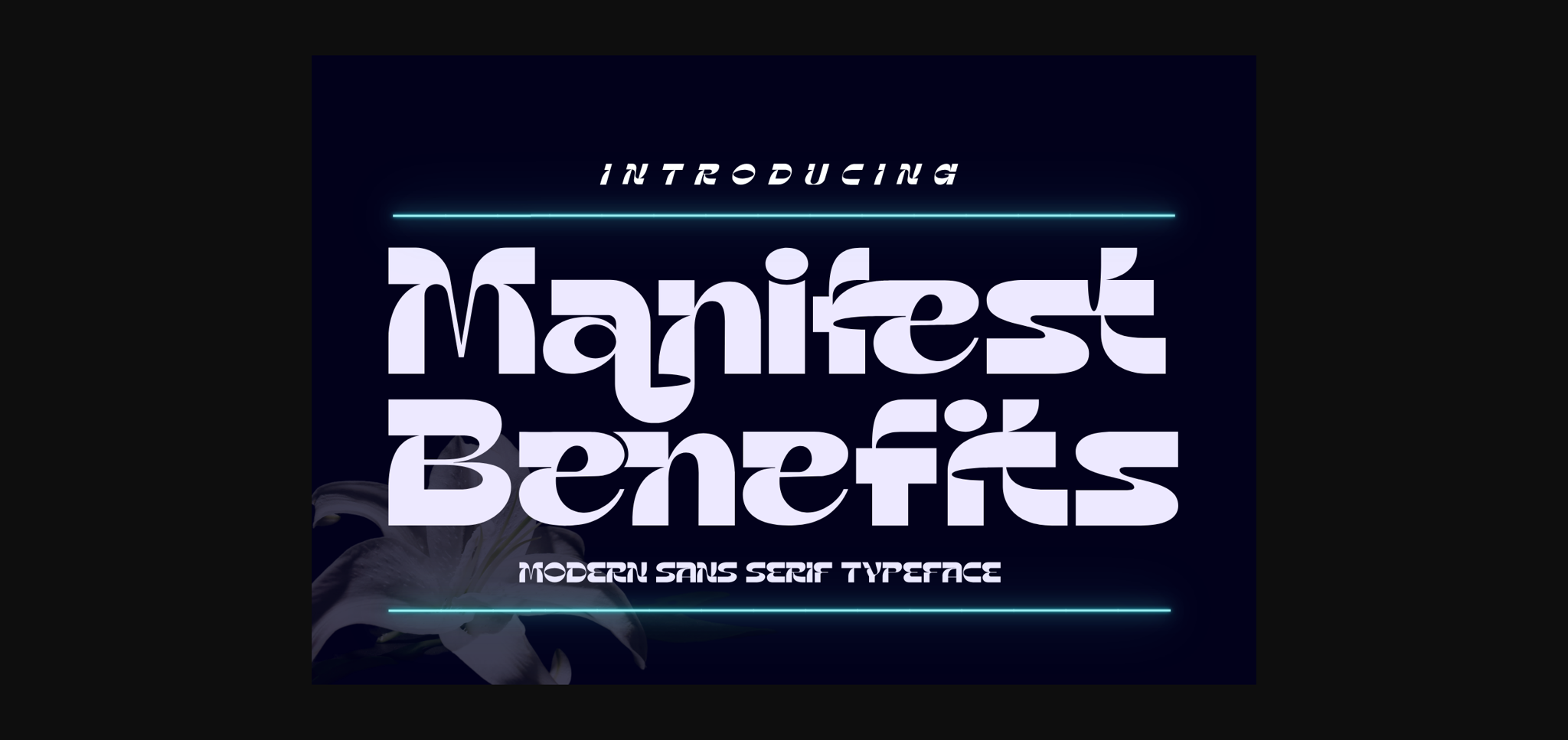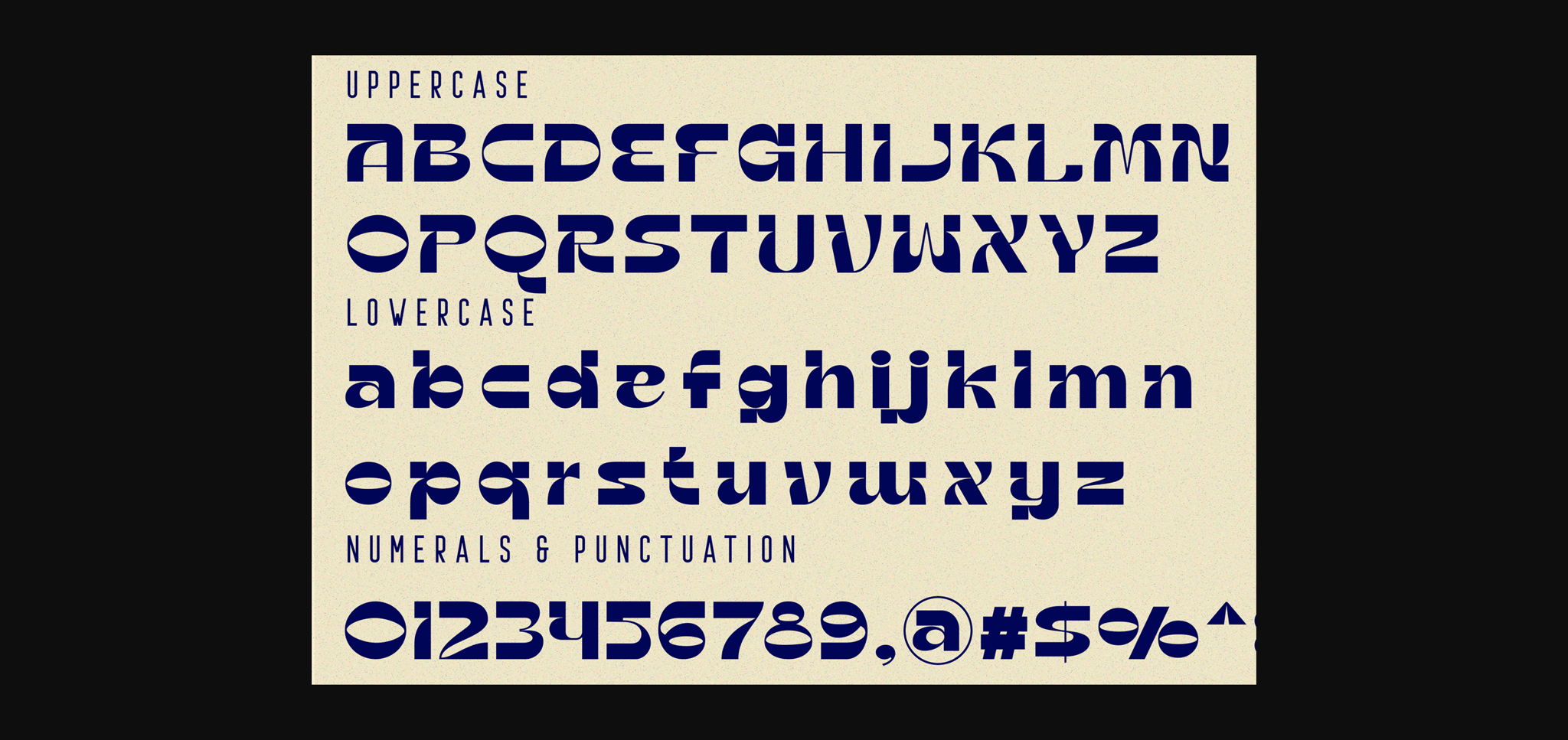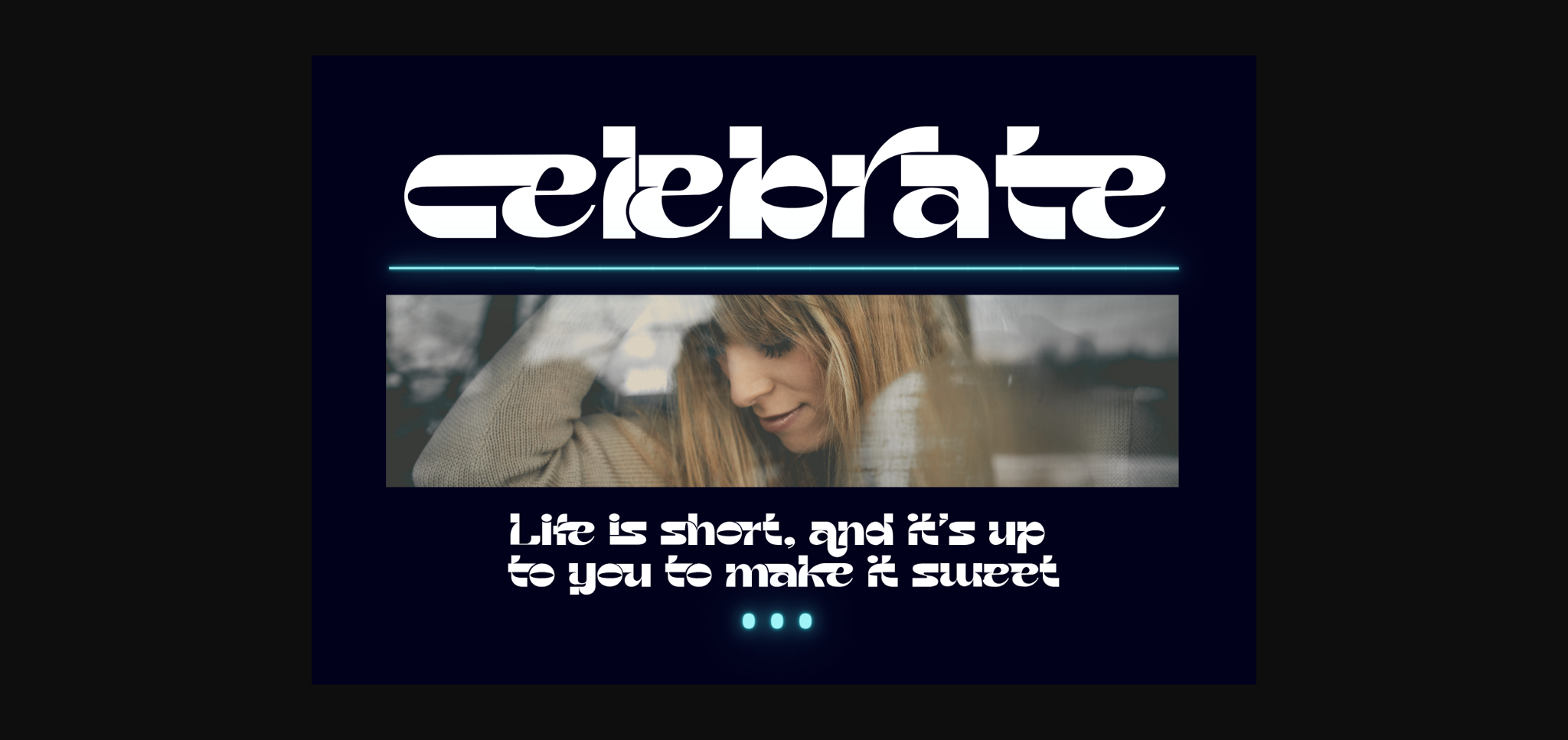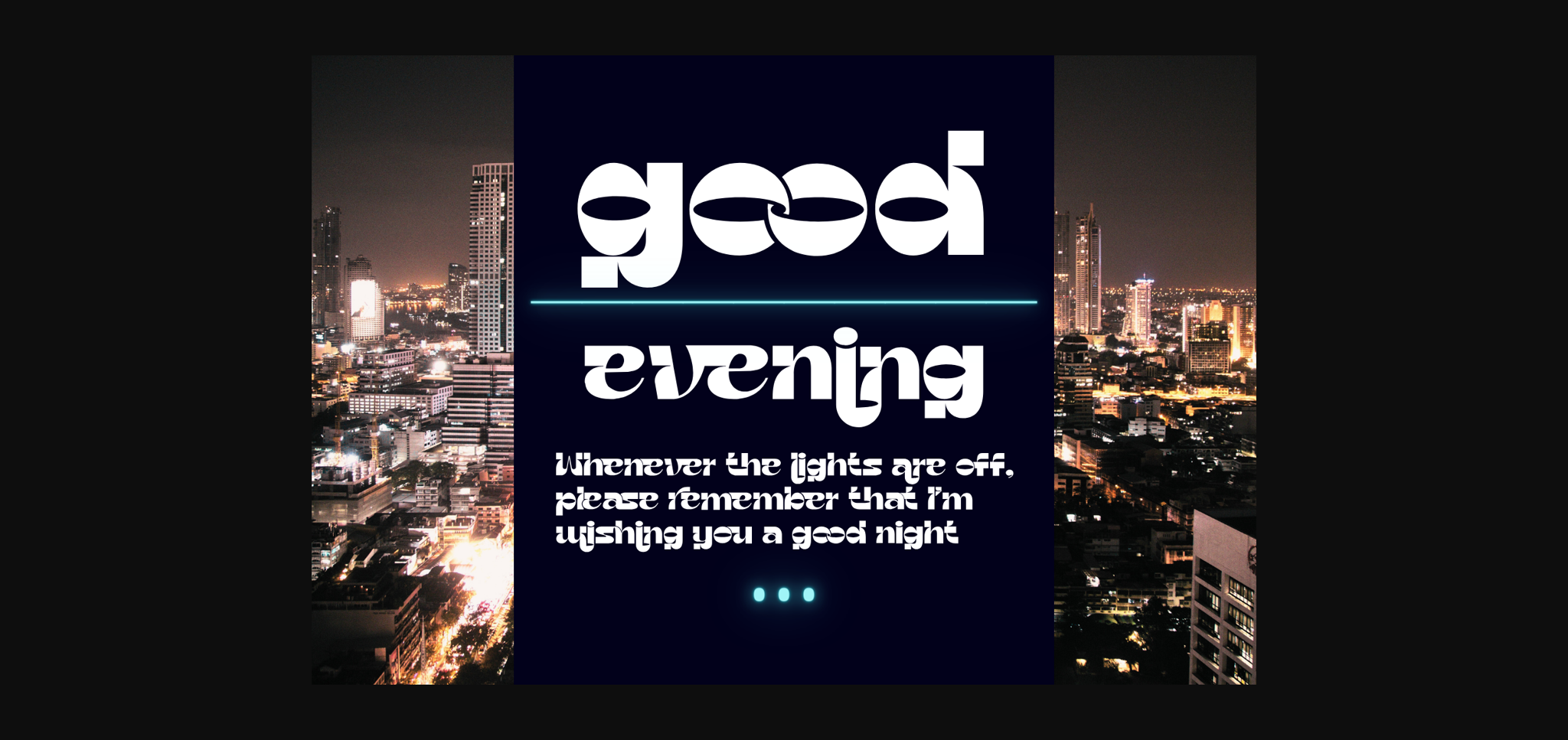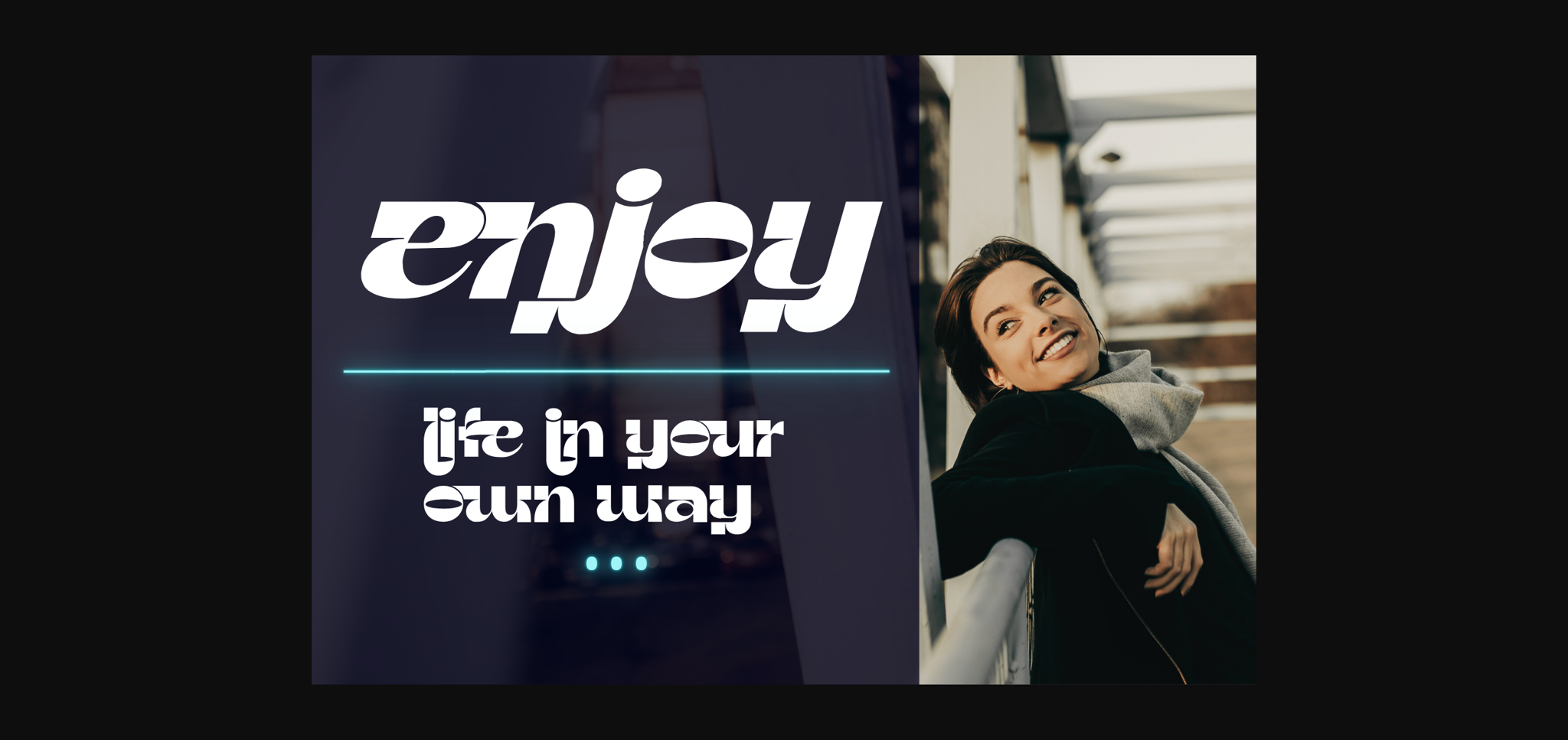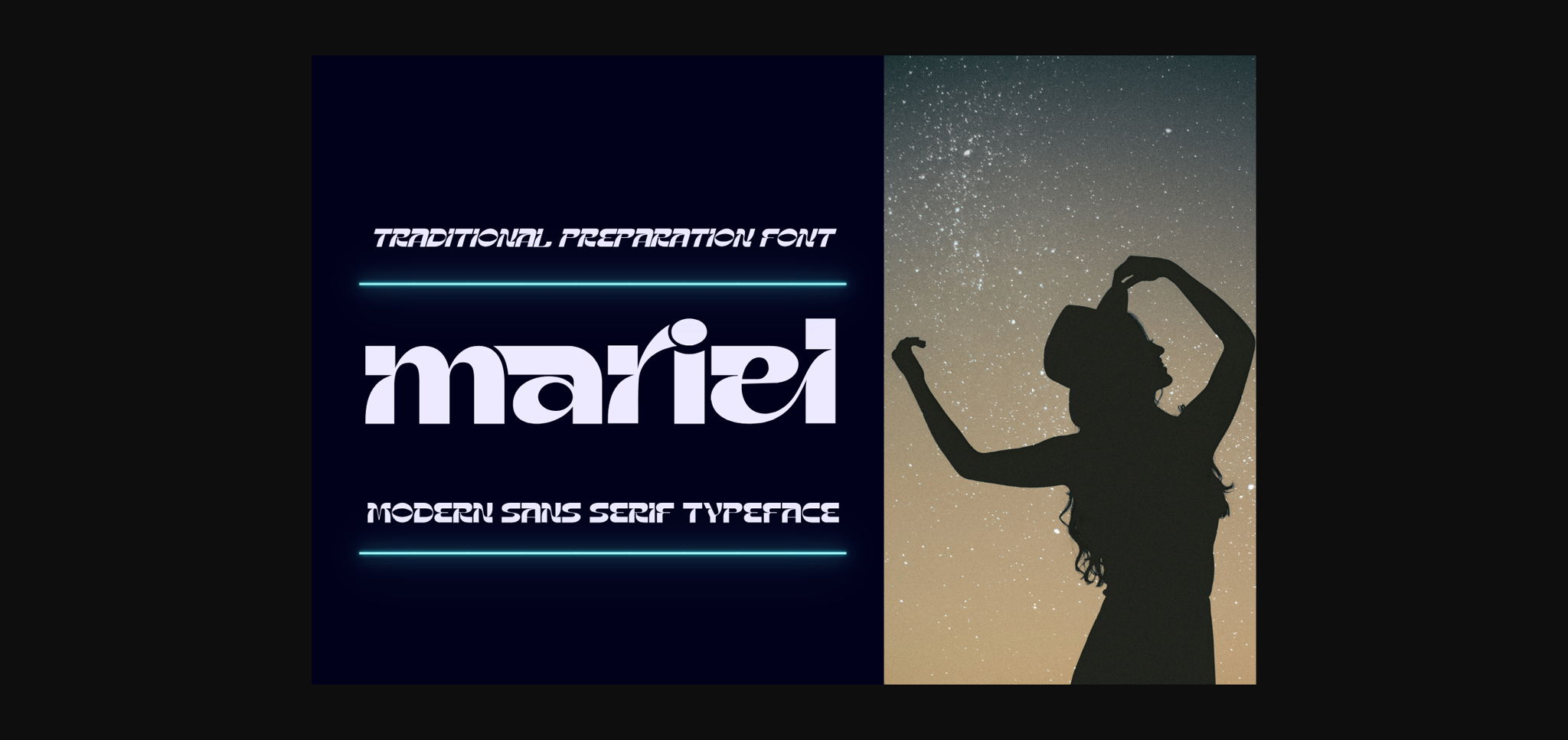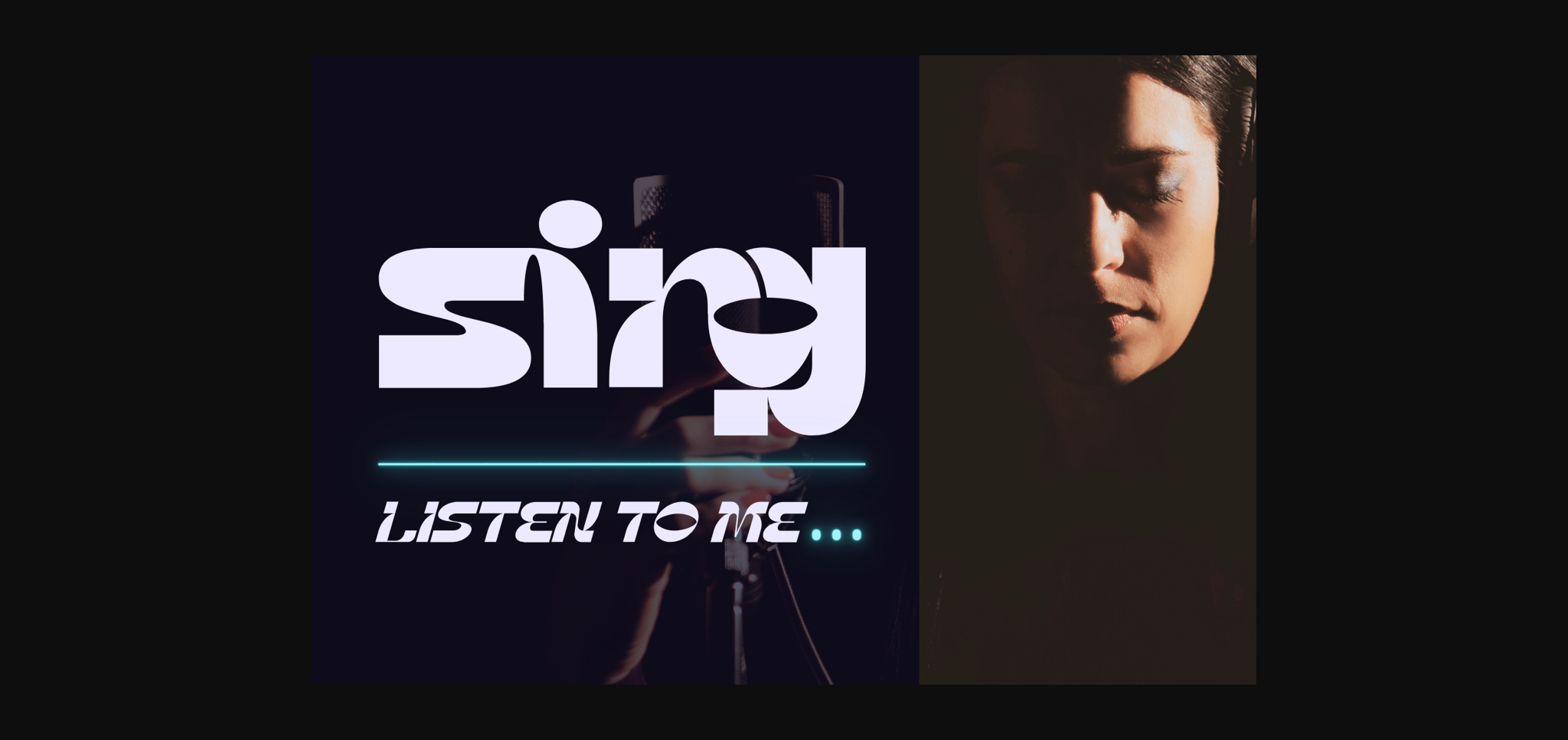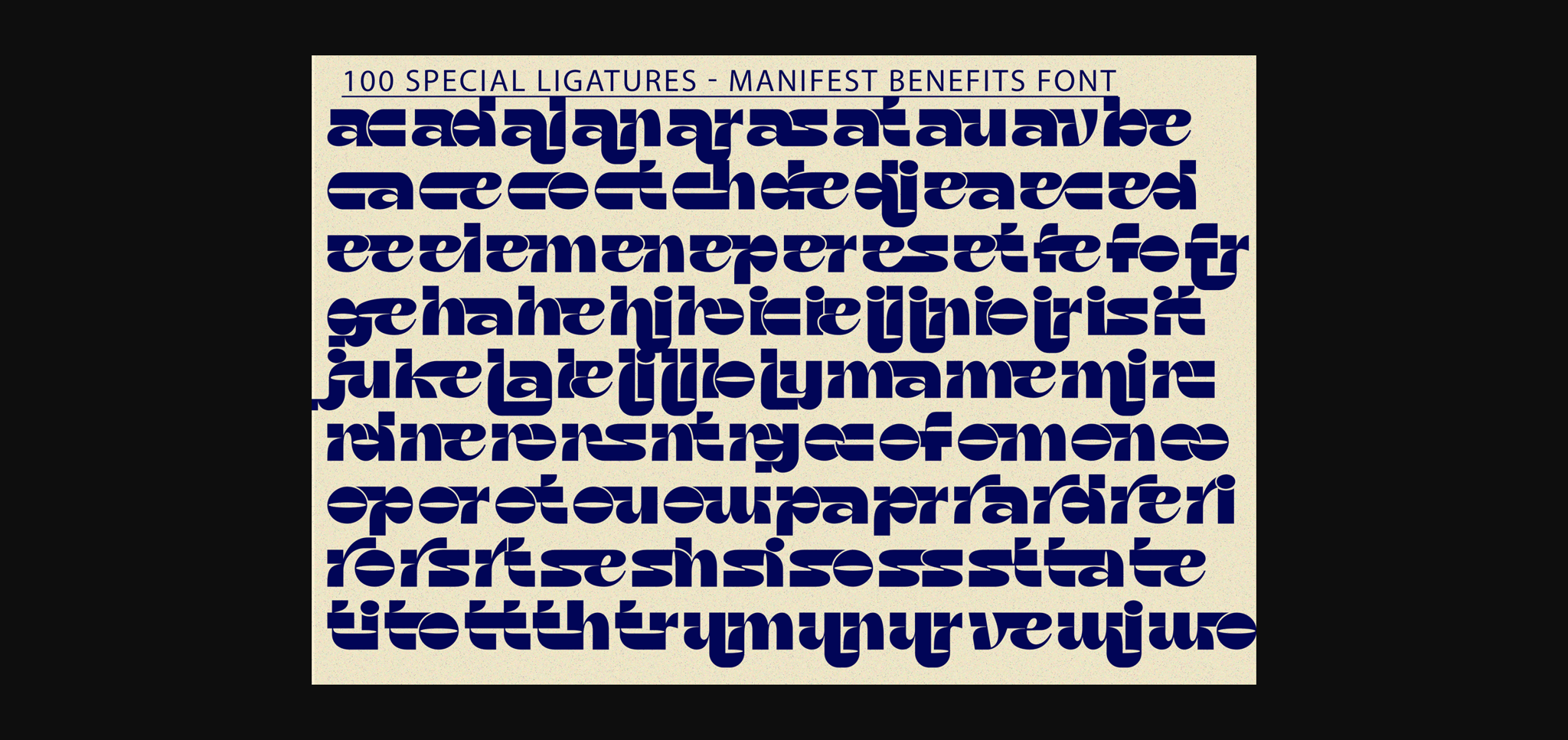
Manifest Benefits Font – A bold, playful and funky display sans serif that are inspired by the classic advertisement letters. Crafted with high attention to details to match with nowadats trendiness. This font can give your designs a playful and friendly impression. You can use this font for retro, vintage and urban designs. This font comes with alternative style and ligature features which are suitable for various projects such as logos, product labels, posters and many more.
Manifest Benefits was built with OpenType features and includes 100 ligatures, alternate, numbers, punctuation, and it also supports other languages.